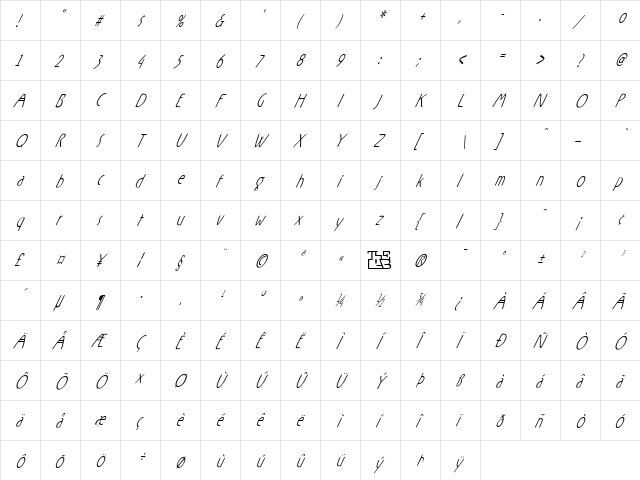
Rx-ZeroOne Regular
Design Context for Rx-ZeroOne Typeface
Rx-ZeroOne offers clean, dependable letterforms without strong stylistic allegiance, making it a practical choice for designers who need flexibility.
Pro Tip: Pair Rx-ZeroOne with a font of contrasting weight or personality to build a more expressive typographic hierarchy.